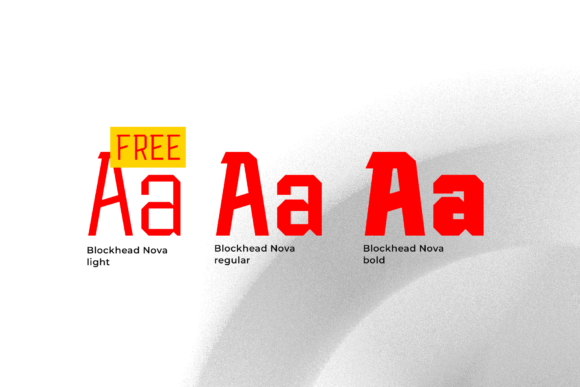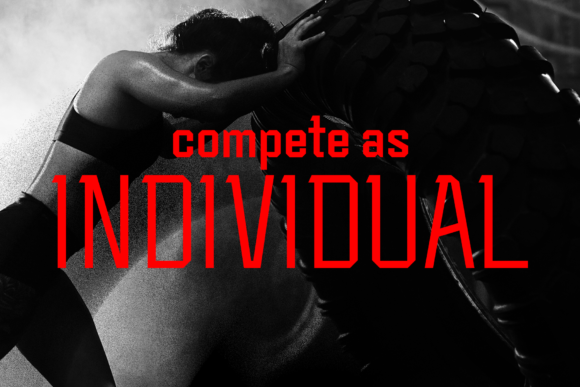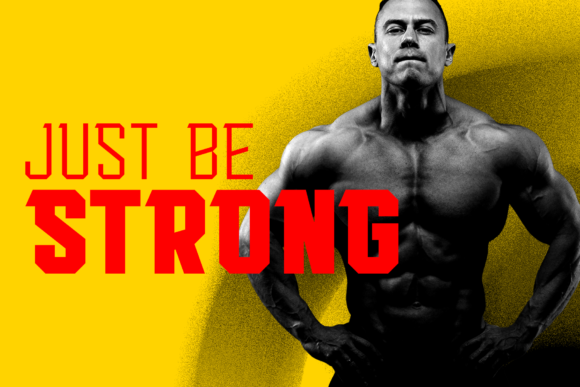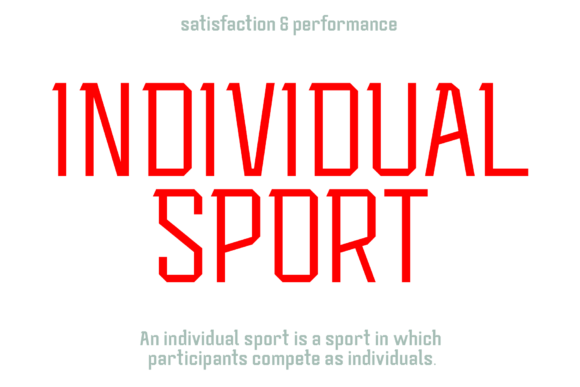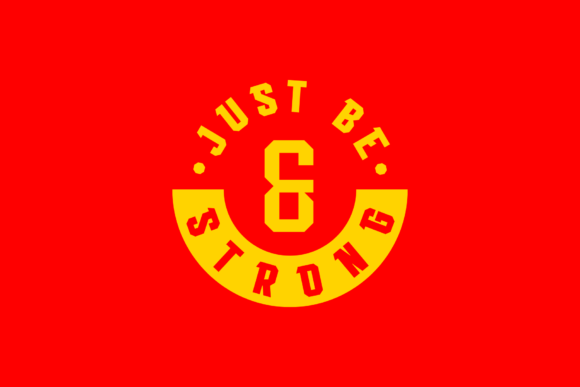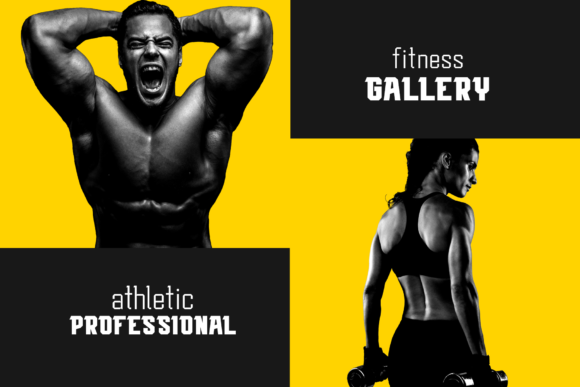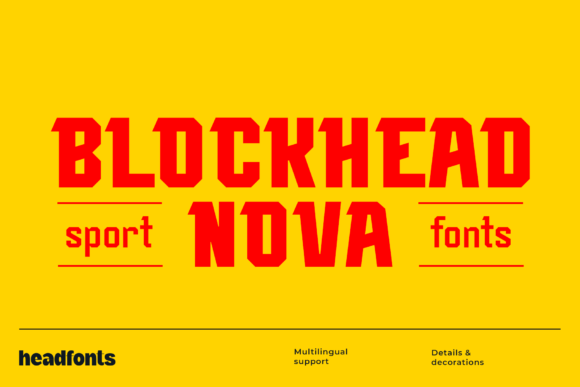
Introducing Blockhead Nova Font: The Ultimate Retro Display Font
Are you tired of using the same old fonts in your designs? Look no further than Blockhead Nova Font, a cool, retro, and thick lettered display font that’s sure to take your creations to the next level. With its unique blend of vintage charm and modern style, Blockhead Nova is the perfect addition to any font library.
Whether you’re a designer, crafter, or simply someone who loves to dabble in creative projects, Blockhead Nova Font is a must-have. Its versatility and wide range of uses make it an excellent choice for various design projects, from branding and advertising to packaging and more.
Blockhead Nova’s thick, bold letters are perfect for creating eye-catching headlines, titles, and captions that demand attention. Its retro vibe also makes it an excellent choice for designs that require a vintage or nostalgic feel, such as posters, flyers, and brochures.
Key Features of Blockhead Nova Font
- Retro and Vintage Feel: Blockhead Nova’s design is inspired by classic fonts from the past, giving it a unique and distinctive look that’s sure to stand out.
- Thick and Bold Letters: The font’s thick, bold letters make it perfect for creating eye-catching headlines and titles that demand attention.
- Highly Versatile: Blockhead Nova can be used for a wide range of design projects, from branding and advertising to packaging and more.
- Easily Readable: Despite its bold design, Blockhead Nova is surprisingly easy to read, making it perfect for use in both digital and print designs.
How to Use Blockhead Nova Font in Your Designs
- Pair it with Other Fonts: Blockhead Nova pairs well with a variety of other fonts, so don’t be afraid to experiment with different combinations to find the perfect look for your design.
- Use it for Headlines and Titles: Blockhead Nova’s bold design makes it perfect for use in headlines and titles, where it can help grab attention and draw the reader in.
- Add Texture and Effects: Consider adding texture or effects to your Blockhead Nova text to give it a more dynamic and interesting look.
Why Choose Blockhead Nova Font?
- Unique Design: Blockhead Nova’s retro design sets it apart from other fonts, making it a great choice for designers who want to create something truly unique.
- High-Quality: Blockhead Nova is a high-quality font that’s designed to produce crisp, clear results, even at large sizes.
- Easily Customizable: Blockhead Nova can be easily customized to suit your needs, whether you want to change the color, size, or style.
In conclusion, Blockhead Nova Font is a cool, retro, and thick lettered display font that’s sure to become a valuable addition to any font library. Its unique design, versatility, and high-quality construction make it an excellent choice for designers and crafters who want to create eye-catching, professional-looking designs. So why wait? Download Blockhead Nova Font today and start taking your designs to the next level!